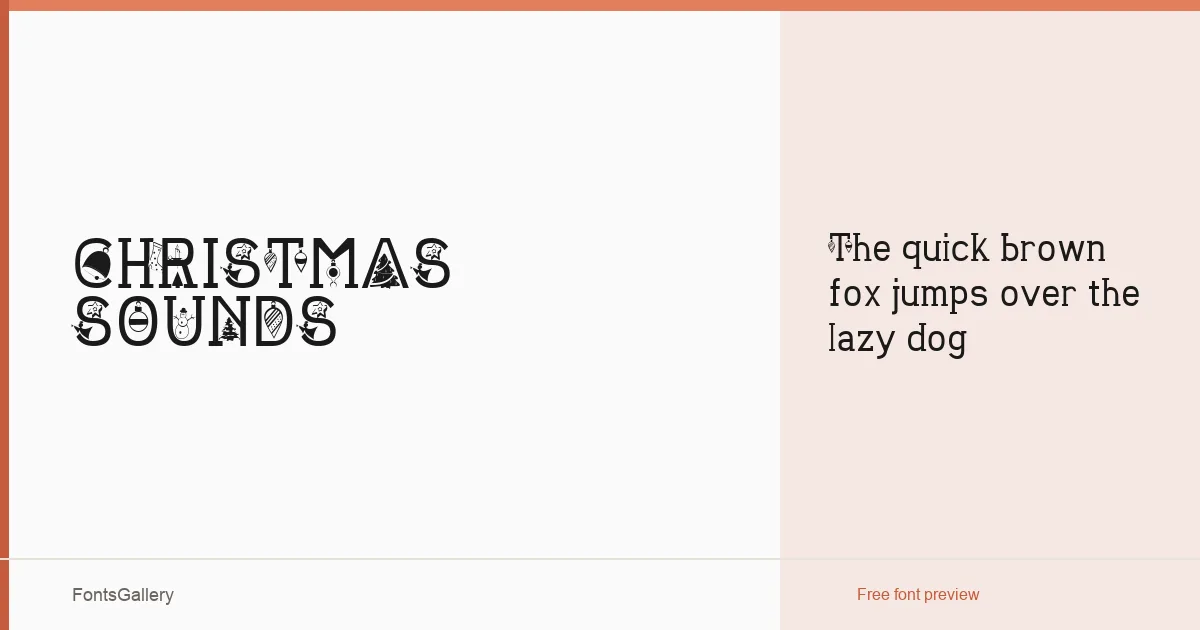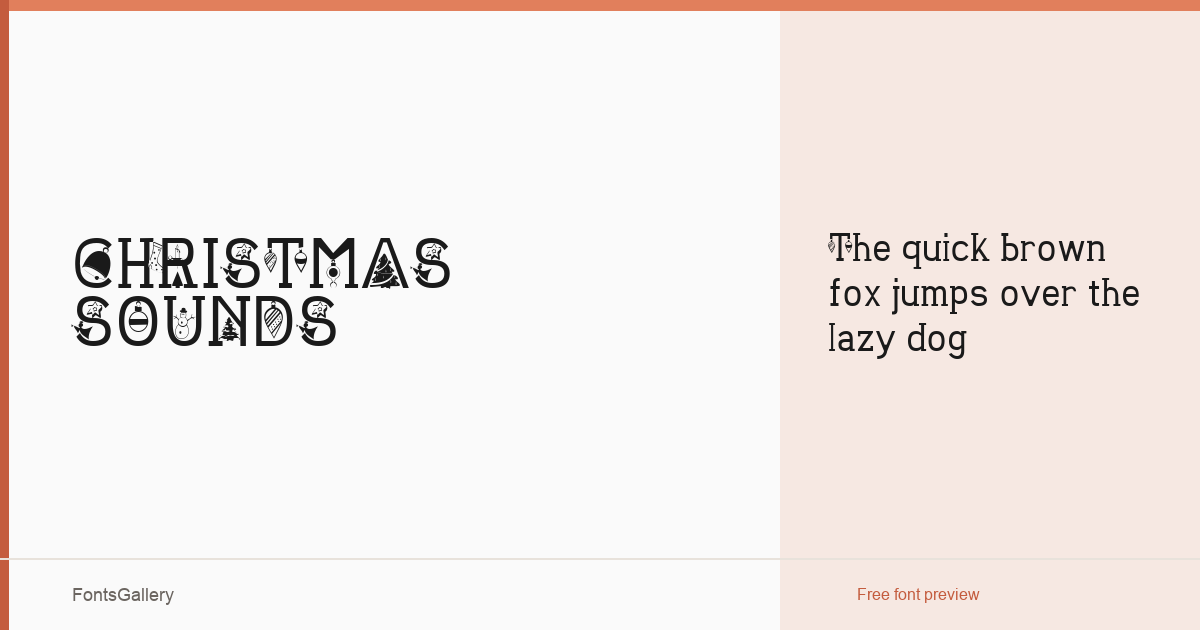
About CHRISTMAS SOUNDS Font
CHRISTMAS SOUNDS is a decorative typeface crafted by Tipografia Leone, designed to bring festive charm and holiday cheer to any creative project. With its playful yet classic character, this font captures the warmth and nostalgia of the Christmas season. It is a versatile choice for designers seeking a whimsical, vintage-inspired aesthetic for seasonal work.
CHRISTMAS SOUNDS blends a playful, whimsical spirit with classic vintage sensibilities, making its letterforms feel both nostalgic and festive. The decorative styling gives each character a handcrafted, celebratory quality that evokes the timeless charm of traditional holiday typography. Its expressive details strike a balance between ornate personality and reliable readability across display sizes.
This typeface shines in holiday posters, greeting cards, invitation cards, and T-shirt designs where a festive, eye-catching display font is needed. Its decorative nature makes it ideal for seasonal branding, packaging, and promotional materials that call for a joyful, vintage Christmas feel. CHRISTMAS SOUNDS pairs beautifully with clean, neutral typefaces like Helvetica or the elegant strokes of Aresink to create a well-balanced typographic composition.